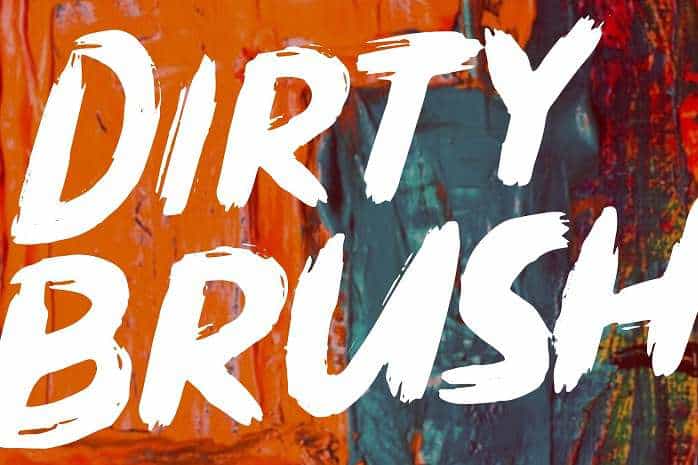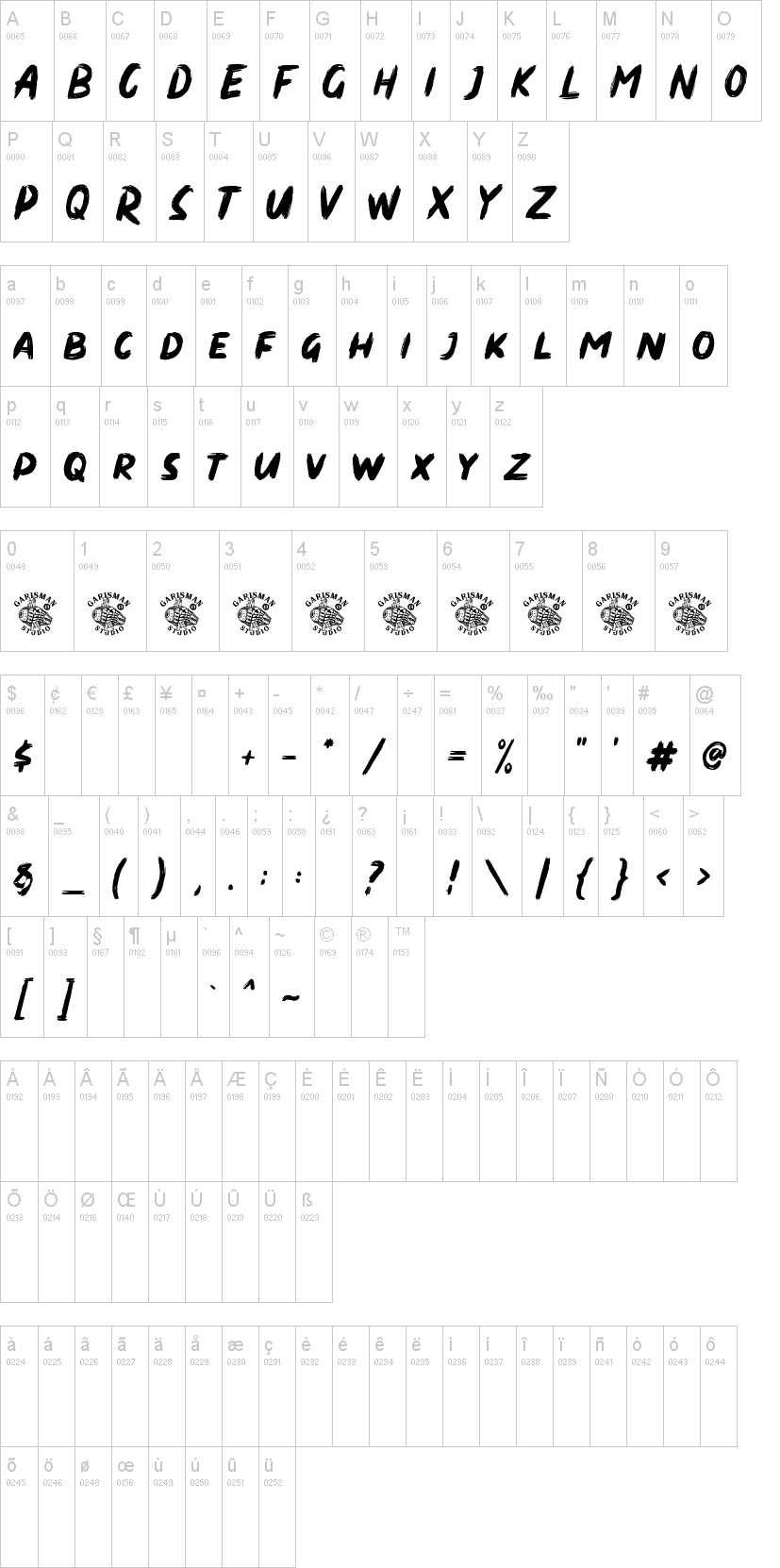
Dirty Brush is a Brush font created by Garisman Studio. The users can download it for free and use it for personal purposes. The free version gives all upper and lowercase letters and some special characters as well.